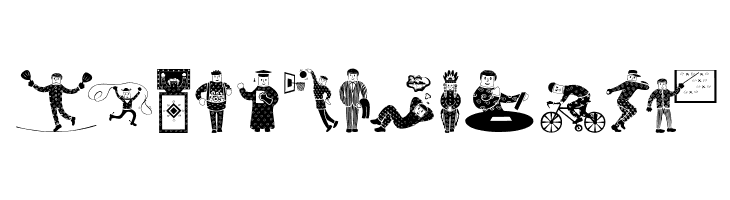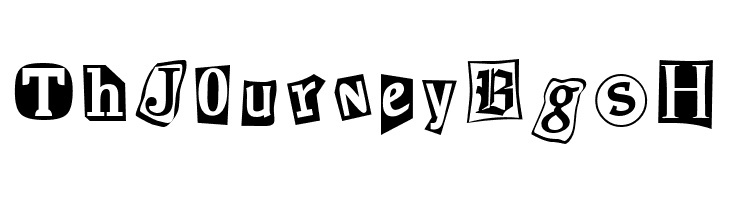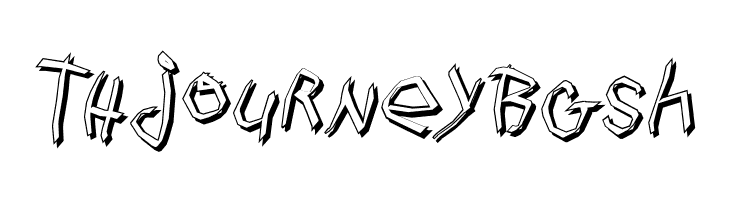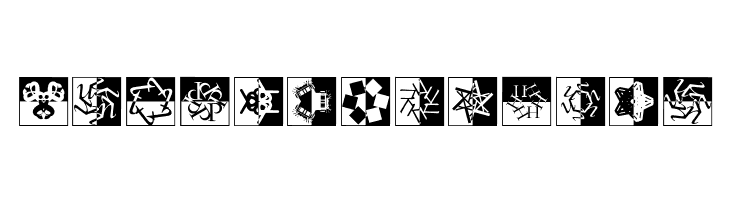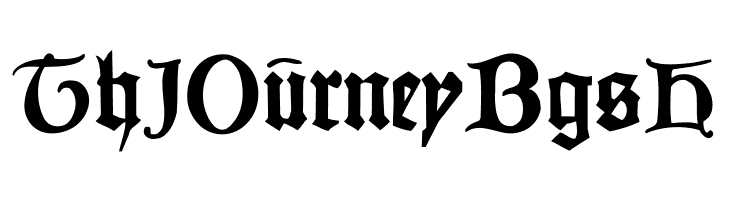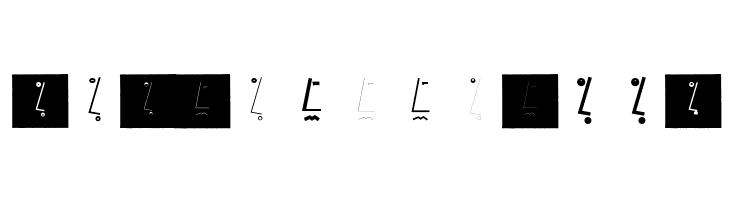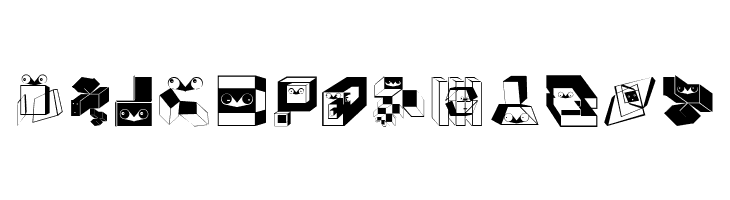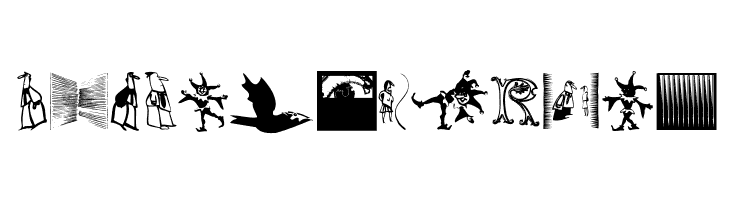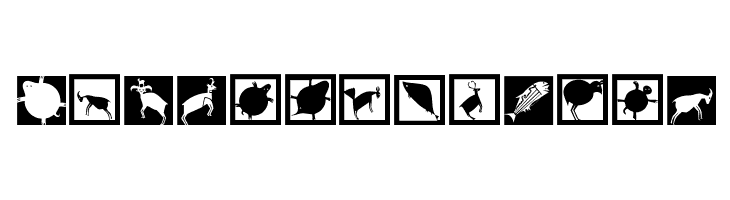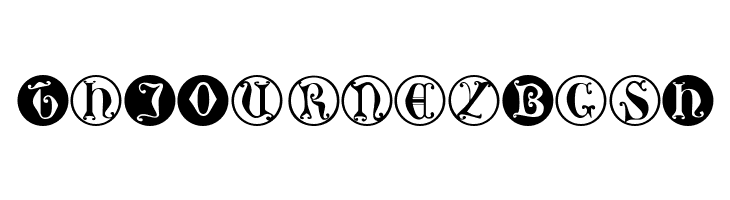
• RareClothes
A decorative font made up of cartoon characters performing different actions.
• Erpressung Normal
A playful, eclectic font with a cut-out, ransom note style.
• WildThingShadow
A bold, edgy font with a 3D shadow effect and angular, dynamic characters.
• KaleidoTypesDrei
Intricate, kaleidoscope-like symbols with geometric patterns.
• JoeCaxton
A classic blackletter font with ornate, angular letterforms.
• TestroomThree
A decorative and abstract font with geometric shapes and playful elements.
• BauhausReminisce
A bold, geometric, and abstract font with a modern artistic flair.
• ThingsFoundOne
Whimsical, illustrative, and highly decorative font with unique hand-drawn characters.
• NewCaveDrawingsDrei
A collection of animal silhouettes and abstract patterns inspired by ancient cave drawings.
• GothicLetters
A decorative Gothic font with ornate, high-contrast characters encased in circles.